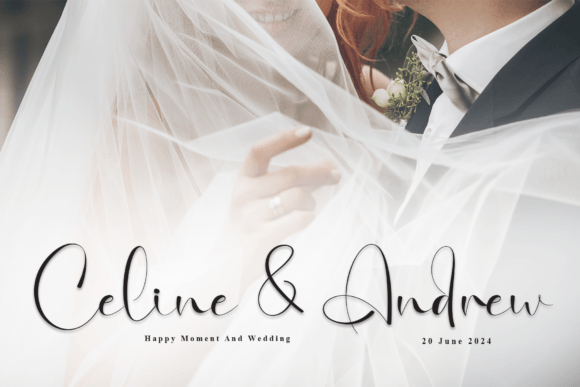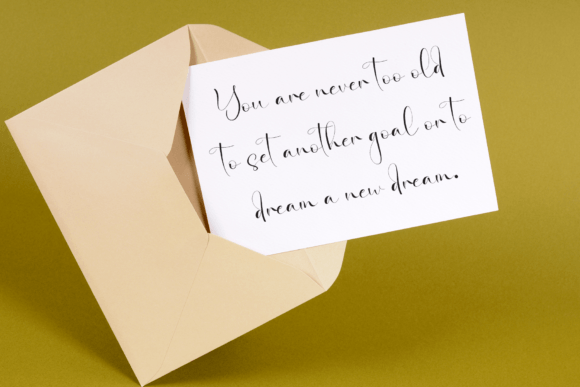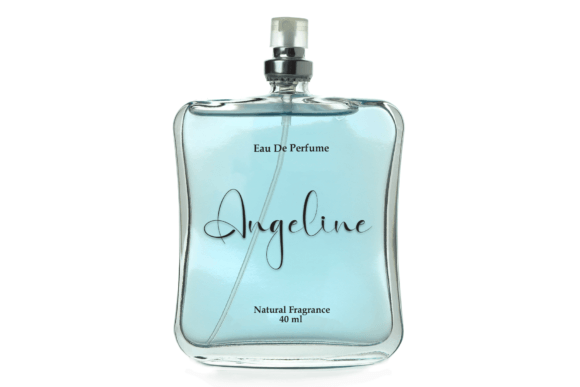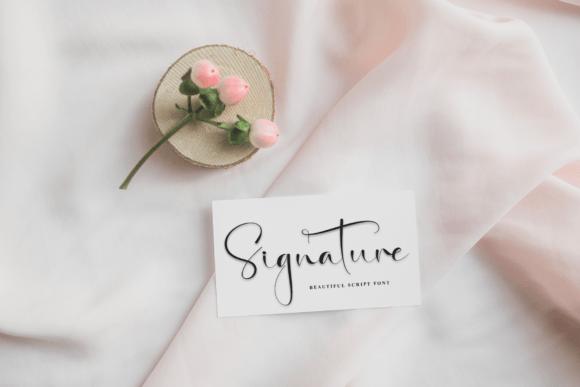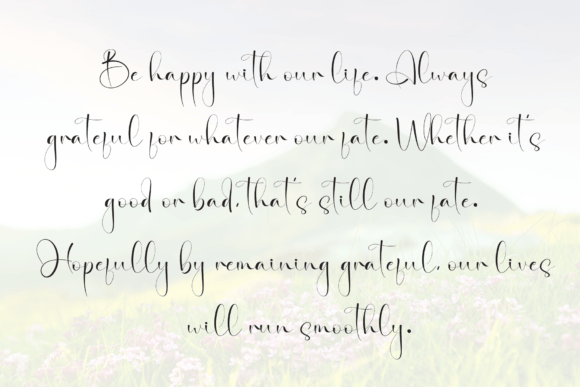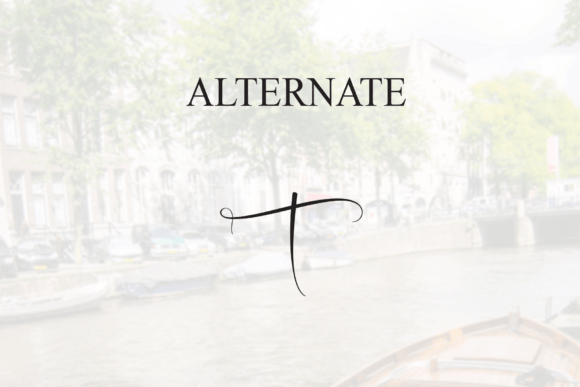
Discover the Elegance of Amsterdam Font: A Delicate Handwritten Masterpiece
Are you a designer or crafter looking for a font that exudes elegance and sophistication? Look no further than the Amsterdam Font, a delicate and handwritten font that is sure to capture your heart. With its distinct and well-balanced letters, this font is a masterpiece that can elevate your designs to new heights.
The Characteristics of Amsterdam Font
The Amsterdam Font is a beautifully crafted handwritten font that boasts a range of characteristics that make it truly unique. Its delicate lines and curves create a sense of fluidity and movement, giving it a dynamic and expressive feel. The font’s letters are carefully balanced to create a sense of harmony and proportion, making it perfect for use in a variety of design applications.
One of the standout features of the Amsterdam Font is its versatility. Whether you’re creating a wedding invitation, a logo, or a social media graphic, this font can adapt to any style or theme. Its elegant and refined aesthetic makes it perfect for use in high-end branding, packaging, and editorial design.
The Benefits of Using Amsterdam Font
So why should you choose the Amsterdam Font for your next design project? Here are just a few benefits of using this beautiful font:
- Elegance and sophistication: The Amsterdam Font exudes elegance and sophistication, making it perfect for high-end branding and design applications.
- Versatility: This font can be used in a wide range of design applications, from wedding invitations to logos and social media graphics.
- Easy to read: The Amsterdam Font is clear and easy to read, making it perfect for use in body text and other applications where legibility is key.
- Unique and distinctive: The Amsterdam Font has a unique and distinctive style that will set your designs apart from the crowd.
How to Use Amsterdam Font in Your Designs
Using the Amsterdam Font in your designs is easy. Here are a few tips to get you started:
- Pair it with bold fonts: The Amsterdam Font looks great when paired with bold fonts, which can help to create a striking contrast and add visual interest to your designs.
- Use it for headings and titles: The Amsterdam Font is perfect for use in headings and titles, where its elegant and refined aesthetic can really shine.
- Experiment with colors: The Amsterdam Font looks great in a range of colors, from classic black and white to bold and bright hues.
If you’re a designer or crafter looking to get the most out of the Amsterdam Font, here are a few tips to keep in mind:
- Pay attention to spacing: Make sure to pay attention to the spacing between letters and words, as this can affect the overall flow and feel of your design.
- Experiment with different sizes: The Amsterdam Font looks great in a range of sizes, from small and delicate to large and bold.
- Use it to create a sense of hierarchy: The Amsterdam Font can be used to create a sense of hierarchy in your designs, with larger sizes and bold fonts used to draw attention to key elements.
In conclusion, the Amsterdam Font is a delicate and elegant handwritten font that is sure to capture the hearts of designers and crafters. With its distinct and well-balanced letters, versatile style, and range of benefits, this font is a masterpiece that can elevate your designs to new heights. Whether you’re creating a wedding invitation, a logo, or a social media graphic, the Amsterdam Font is the perfect choice.